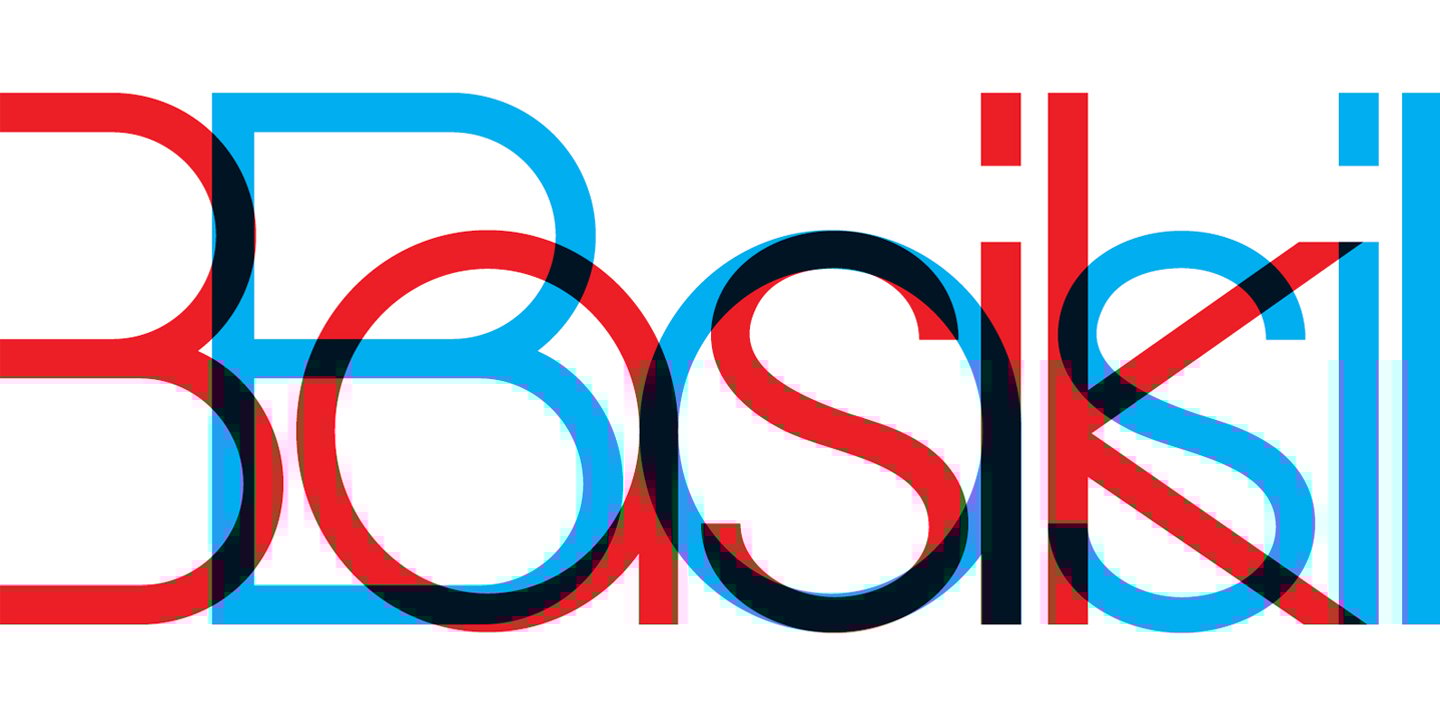
Basik Font is perfect for clean corporate communications, straightforward business presentations, minimalist web designs, essential documentation layouts, fundamental educational materials, clear instructional graphics, basic interface elements, practical signage systems, and any design project that requires pure clarity and unpretentious functionality.
What makes Basik Font so exciting is its masterful return to typographic fundamentals that achieves maximum communication effectiveness through beautifully simplified letterforms that eliminate all unnecessary decoration and focus purely on essential readability. This font embodies the philosophy of functional minimalism with its clean, honest character shapes that communicate directly and effectively without visual distractions. The carefully refined characters feature optimal proportions and clear structure that enhance comprehension and reduce cognitive load, creating the perfect typography solution for projects that prioritize clear communication and user-centered design over ornamental complexity.
The Basik Font family typically includes multiple weight variations with comprehensive character sets featuring uppercase and lowercase letters, numerals, punctuation marks, and essential symbols. Some versions may offer additional styles like italic variants and condensed options, providing designers with fundamental tools for creating clear, functional layouts with genuine utilitarian appeal and timeless practicality.
Basik Font Free Download has gained tremendous appreciation among UX/UI designers, technical writers, and communication professionals who prioritize clarity and accessibility over decorative flourishes. This distinctive typeface excels in both digital and print applications where fundamental readability and universal accessibility are essential for reaching diverse audiences who need clear, straightforward communication without barriers.
The font's essential design makes it particularly effective for educational institutions, government agencies, healthcare organizations, and service providers that need to communicate important information clearly and accessibly to broad audiences. Its straightforward character shapes and excellent legibility ensure professional results across various media formats and reading conditions.
Designers choose Basik Font for its ability to deliver crystal-clear communication while maintaining professional credibility and timeless aesthetic appeal that never goes out of style. The font's fundamental construction works perfectly on everything from technical manuals to accessible web interfaces.
Whether you're developing clear educational materials, accessible government communications, straightforward business documentation, or universal interface designs, Basik Font delivers the perfect combination of functional clarity and professional reliability that ensures your message reaches every audience member with maximum effectiveness and understanding.